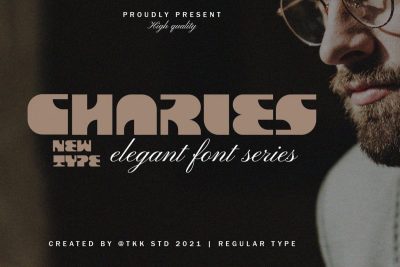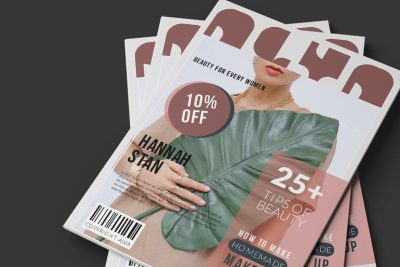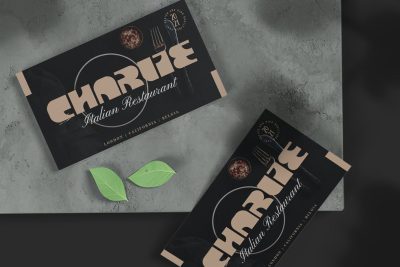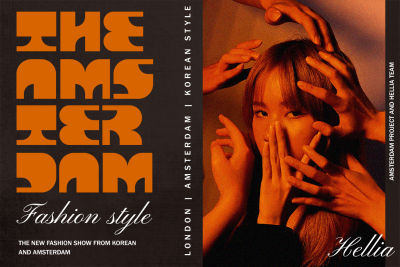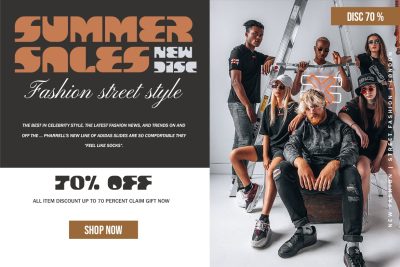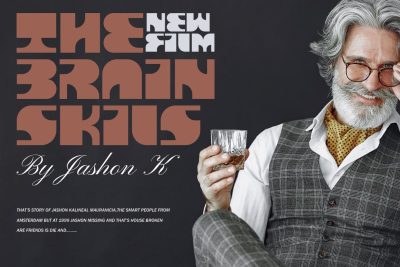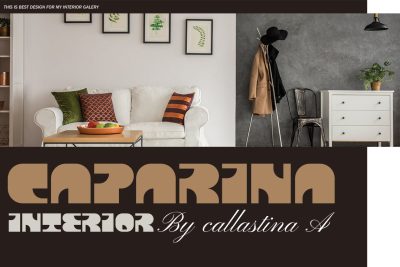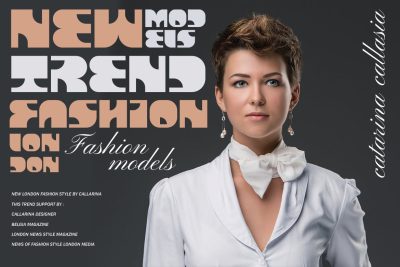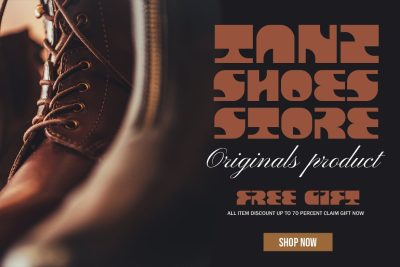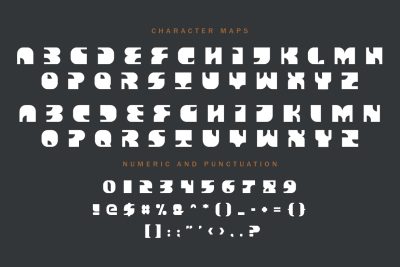
Retro Font CHARLES is a sophisticated typeface that combines modern elegance with a retro flair, making it a perfect choice for timeless designs. Its bold geometric block style pairs with refined cursive accents to strike a harmonious balance between strength and grace. The unique character of this font evokes a sense of luxury and nostalgia while remaining versatile for various design purposes. Its clean, structured forms suit branding, editorial layouts, and high-end creative projects perfectly.
CHARLES showcases carefully crafted details that reflect quality and style. Designers drew inspiration from mid-century typography to channel the aesthetics of vintage advertisements and fashion magazines while maintaining a contemporary edge. Whether applied in digital or print mediums, Retro Font CHARLES delivers sophistication and creativity. It creates a classy yet impactful look, working exceptionally well for logos, packaging designs, or promotional materials. This typeface ensures every project makes a bold statement and leaves a lasting impression.
Retro Font CHARLES Who Is It For?
Retro Font CHARLES suits designers, creatives, and branding experts who value boldness and elegance in their projects. It particularly enhances premium branding initiatives for luxury fashion labels, upscale restaurants, and boutique hotels. Its distinctive combination of block and cursive styles adds an air of sophistication to logos, business cards, and product labels.
Editorial designers and content creators find CHARLES perfect for developing magazine spreads, book covers, or website headers. Its retro-modern aesthetic captures attention while exuding professionalism. Event planners and stationery designers also use CHARLES to craft elegant invitations, menus, and signage for weddings or corporate events.
Marketing professionals can utilize CHARLES to elevate advertising campaigns, social media content, and promotional materials targeting high-end audiences. Creatives in the fashion and design industries value this sleek and stylish typeface. For anyone aiming to create standout designs with class and vintage charm, Retro Font CHARLES offers the ultimate solution.